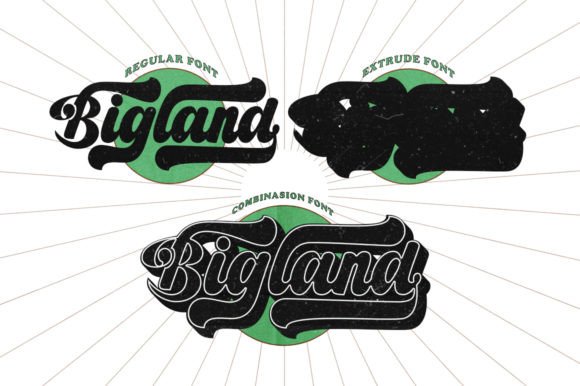
Bigland Retro Font
About the Bigland Retro Font
We are excited to introduce Bigland Retro Font, a must-have typeface for any serious designer. Bigland Retro is an urban retro font with the style like a logotype lettering. Add it confidently to your projects, and you will love the results. This font is PUA encoded which means you can access all of the glyphs and swashes with ease!
Bigland Retro Font Usage Examples
Bigland Retro Font Example